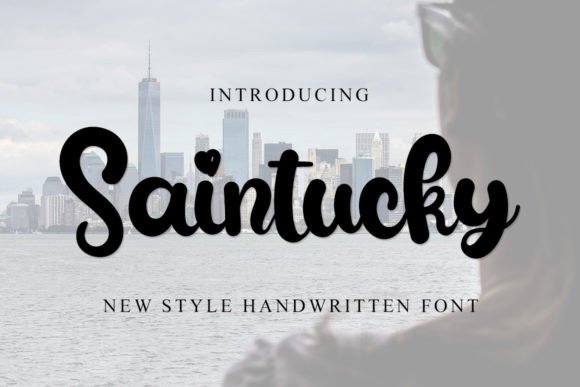
Prepare to be captivated by Saintucky, the script font that dances across your screen with grace and elegance. Its flowing lines, reminiscent of a handwritten masterpiece, lend an air of sophistication and personalization to any design project. Whether you're crafting a wedding invitation that exudes romance, a branding project that demands attention, or a social media post that seeks to mesmerize, Saintucky is your perfect companion.
Step into a world of infinite creativity with Saintucky. Its diverse weights and styles allow you to effortlessly create a symphony of design elements, from captivating headlines and informative body text to logos that leave an unforgettable mark. The possibilities are boundless, inviting you to explore the depths of your imagination and create designs that resonate with your audience.
With Saintucky, you'll discover a font that not only elevates your designs but also captivates the hearts of your audience. Its intricate details, like delicate brush strokes and flourishing curves, add a touch of luxury and refinement to every project. It's a font that whispers elegance and commands attention, leaving a lasting impression that lingers in the minds of your viewers.
Unleash your creativity and embark on a design journey with Saintucky, the script font that transforms your vision into reality. Its versatility knows no bounds, making it the perfect choice for a wide range of projects. From the heartfelt warmth of personal invitations to the sleek sophistication of professional branding, Saintucky adapts effortlessly to your design needs.
Saintucky is not just a font; it's an artistic expression that breathes life into your designs. It's a font that speaks to the soul, evoking emotions and creating connections. With Saintucky, your words and designs will dance across the page, leaving an indelible mark on the hearts of your audience.